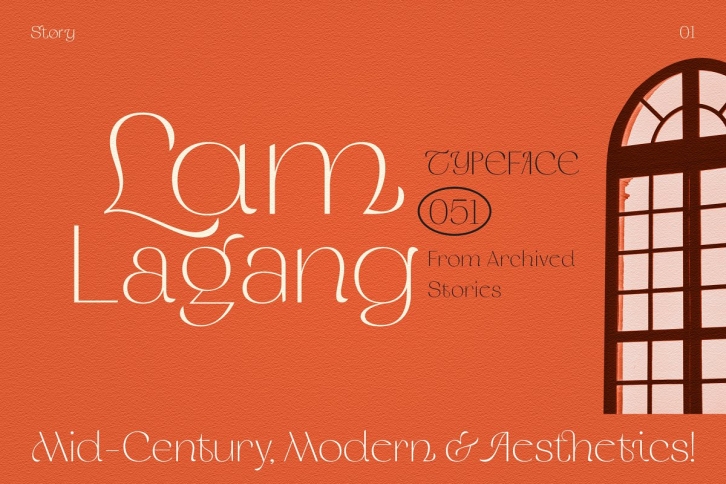
LAM LAGANG 051
Is a sans serif contemporary with Mid-Century, Modern & Aesthetics style. Sans serif style combined with swash, some letters with shades of Blackletter complete with Ligatures and Alternative Letters to complete all your design explorations.